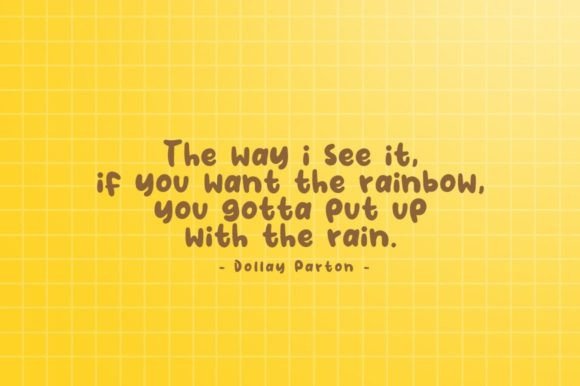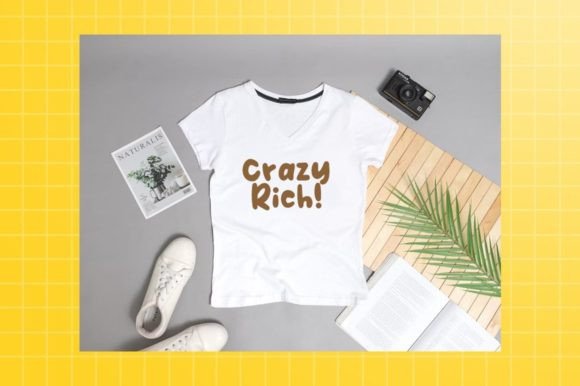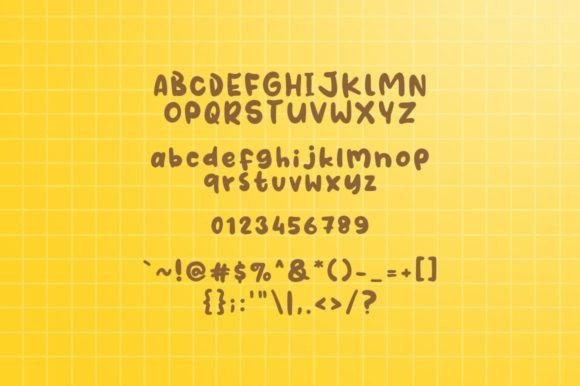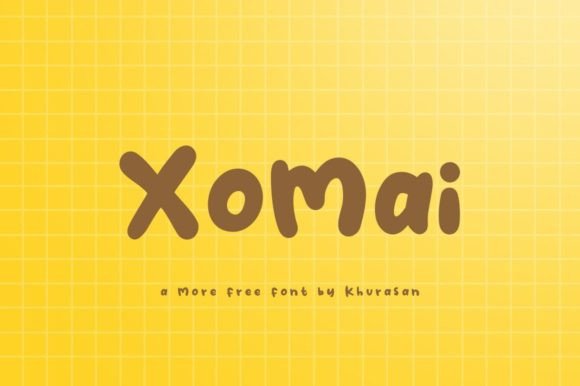
Xomai Font
About Xomai Font
“Xomai” is a contemporary and stylish handwritten font that effortlessly combines modernity with a touch of fanciness. Its versatile design makes it an ideal choice for a wide range of creative projects, including posters, logos, magazines, book covers, banners, and more. This font offers a fresh and trendy look, making it perfect for designers seeking to add a fashionable and sophisticated flair to their designs.
With its sleek and elegant letterforms, “Xomai” exudes a sense of modernity and sophistication. Its handwritten style adds a personal and artistic touch to your text, making it suitable for various applications. Whether you’re designing promotional materials, social media graphics, or branding elements, “Xomai” adds a contemporary and stylish vibe to your projects.
The font’s versatility allows it to seamlessly adapt to different design contexts. Its fancy yet readable appearance makes it a popular choice for both digital and print media. Whether used in large-scale posters or subtle logo designs, “Xomai” brings a sense of chic elegance to any visual composition.
Embrace the contemporary allure of “Xomai” and let your creativity shine. Whether you’re crafting a minimalist book cover, designing a vibrant banner, or creating a memorable logo, this font provides the perfect foundation for your creative endeavors. With its modern and fashionable aesthetic, “Xomai” helps you create lovely and visually striking designs that leave a lasting impression. Don’t miss out on this amazing freebie, and elevate your projects with the elegance and charm of “Xomai” today!